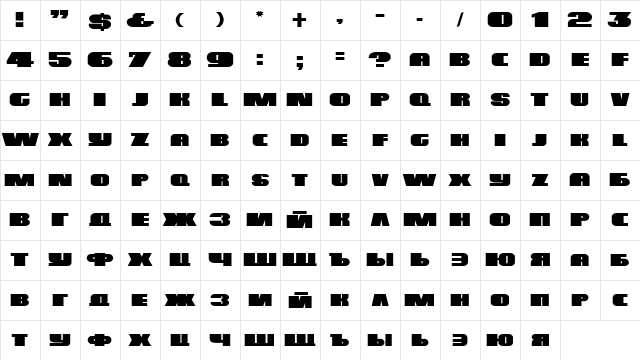
DS Poster Regular
| Designer | Dubina Nikolay |
Design Context for DS Poster Typeface
DS Poster offers clean, dependable letterforms without strong stylistic allegiance, making it a practical choice for designers who need flexibility.